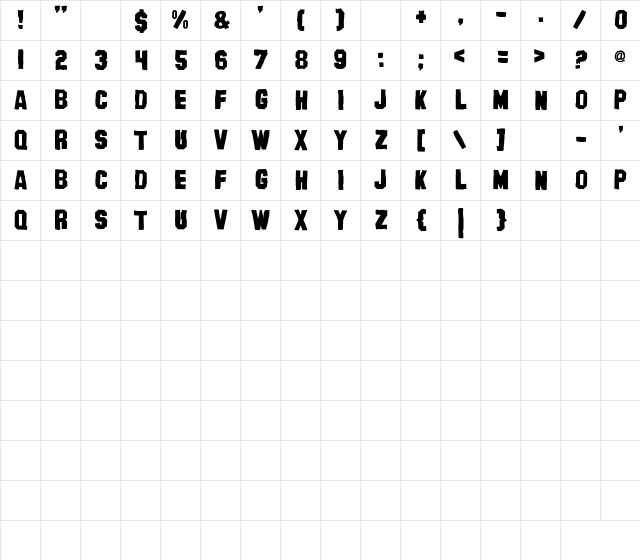
-banhart-black- Regular
Foundry: Eric Wiryanata
Designer: Eric Wiryanata
Design Context for -banhart-black-
-banhart-black- is a composed and adaptable typeface that performs quietly and consistently across a wide range of design contexts.
Pro Tip: Use -banhart-black- in both headline and body roles to test its range before committing to a single application.
Who designed the -banhart-black- Regular font?